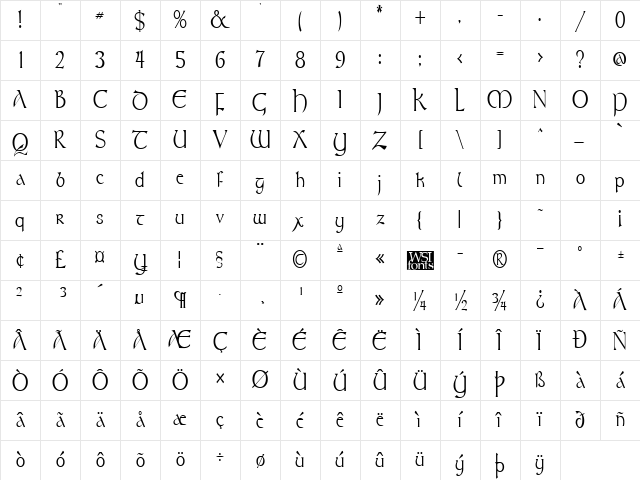
TolkienNarrow Regular
Design Context for TolkienNarrow
TolkienNarrow is a composed and adaptable typeface that performs quietly and consistently across a wide range of design contexts. Its narrow stance lets it pack a punch even in space-constrained designs.